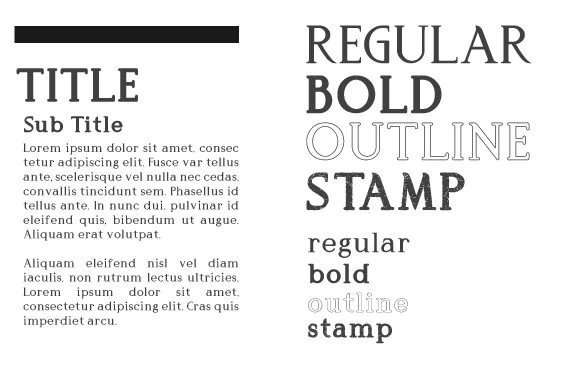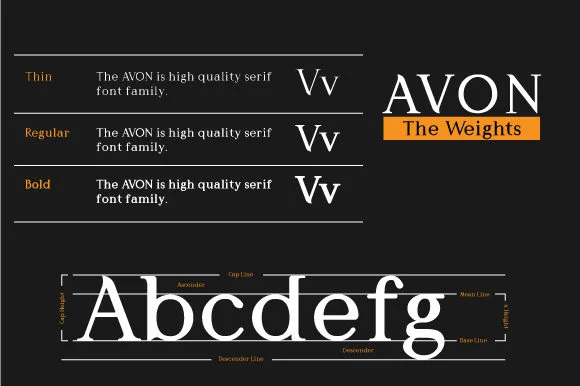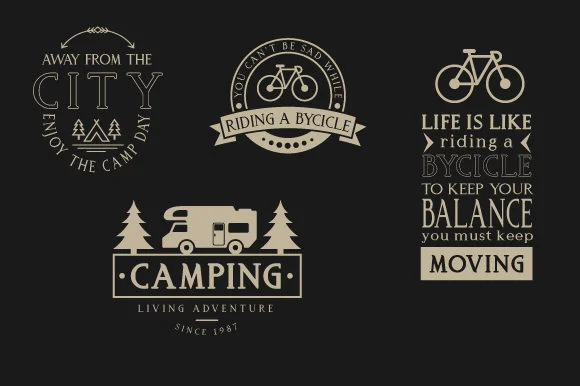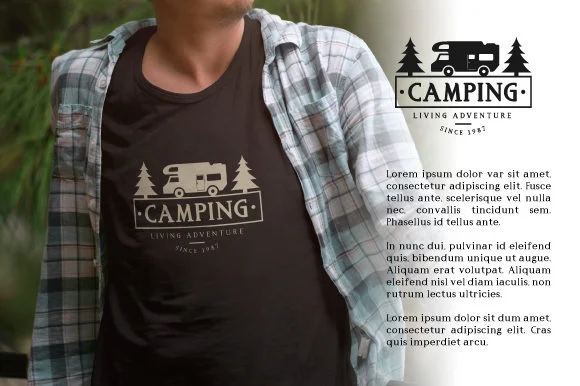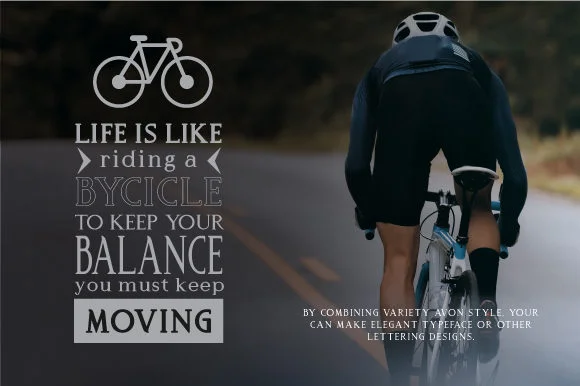
Avon Font
Avon offers a fresh typographic approach that balances visual appeal with exceptional legibility.
Clean terminals, harmonious curves, and precise spacing give the typeface an authoritative yet approachable quality.
It is an excellent choice for branding projects, logo design, packaging, editorial layouts, social media graphics, and product labels.